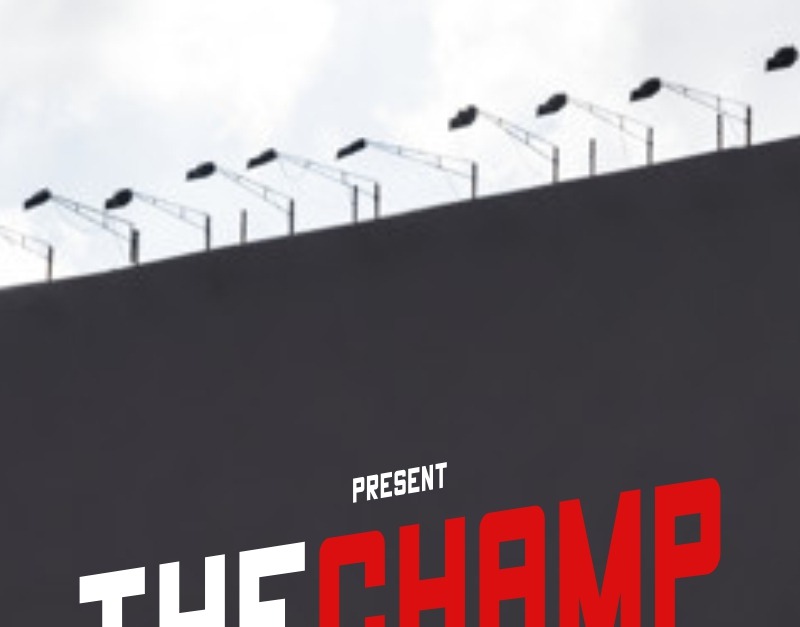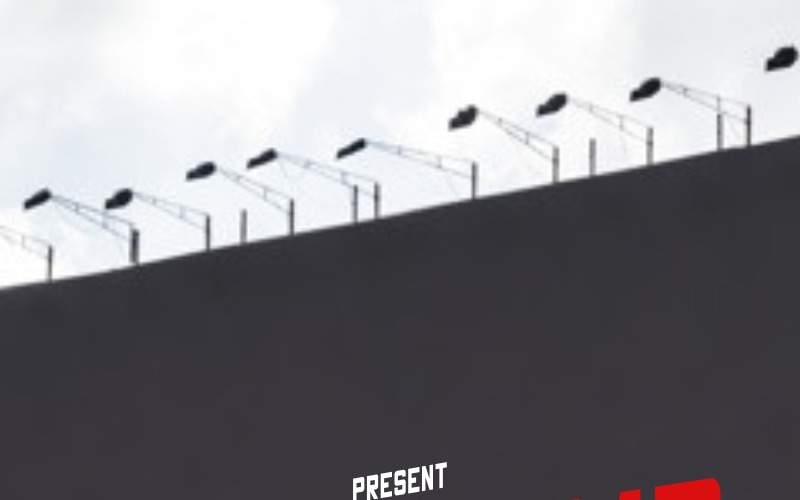
TheChamp Font
THECHAMP – simple bold font. Four styles : Regular, Italic, gradient, stroke
Great for branding, logo, stationery, business card, signage, flyer, brochure etc. There are many industries that is suitable for this font : construction, real estate, services, racing, cars, motorcycle club etc